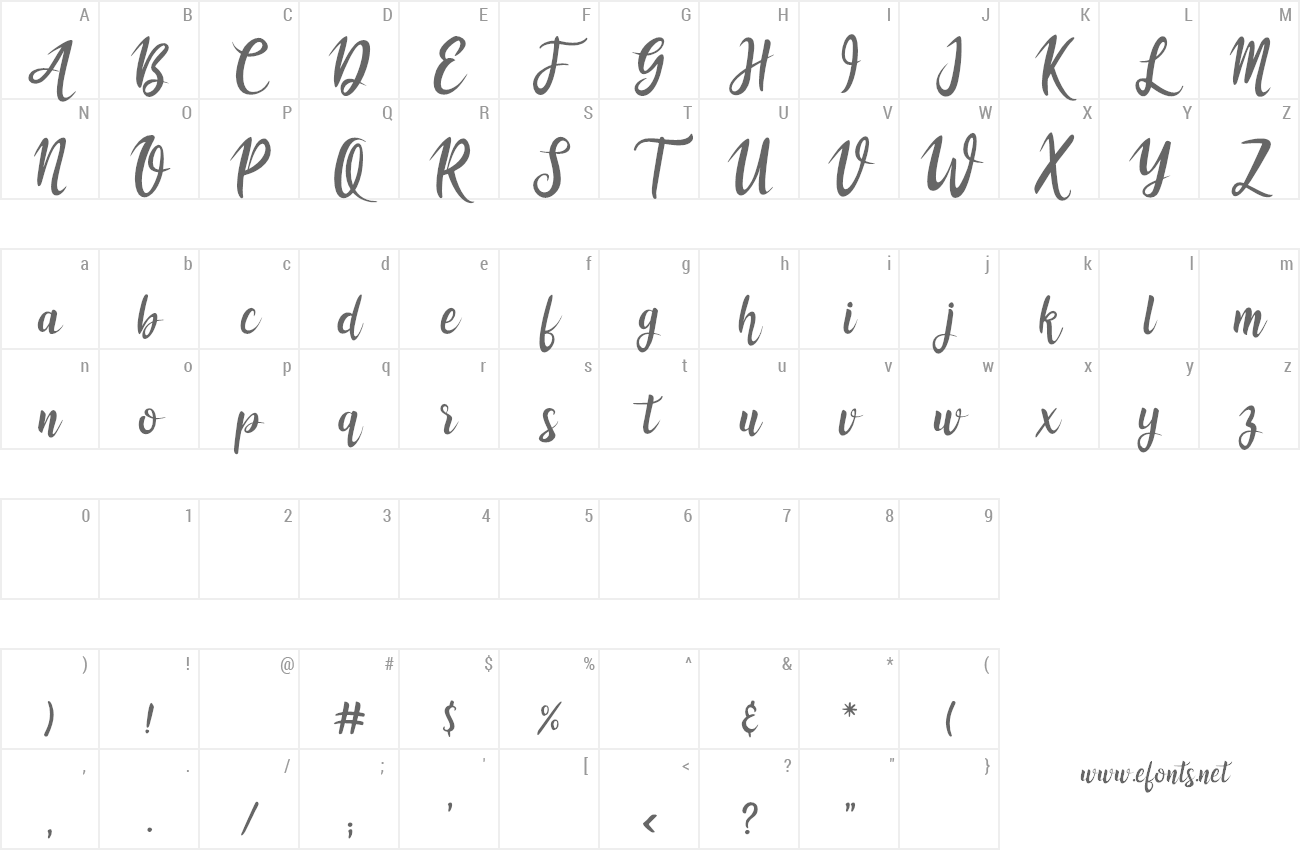
Font name: | Athika |
Author: | Riyadh Rahman |
Note by Riyadh Rahman | |
The Athika is a beautiful script font. It has a modern and elegant look and is perfect for logos, branding, invitations, photography, wedding stationary, labels, and every other design which needs an unique and luxurious touch. |